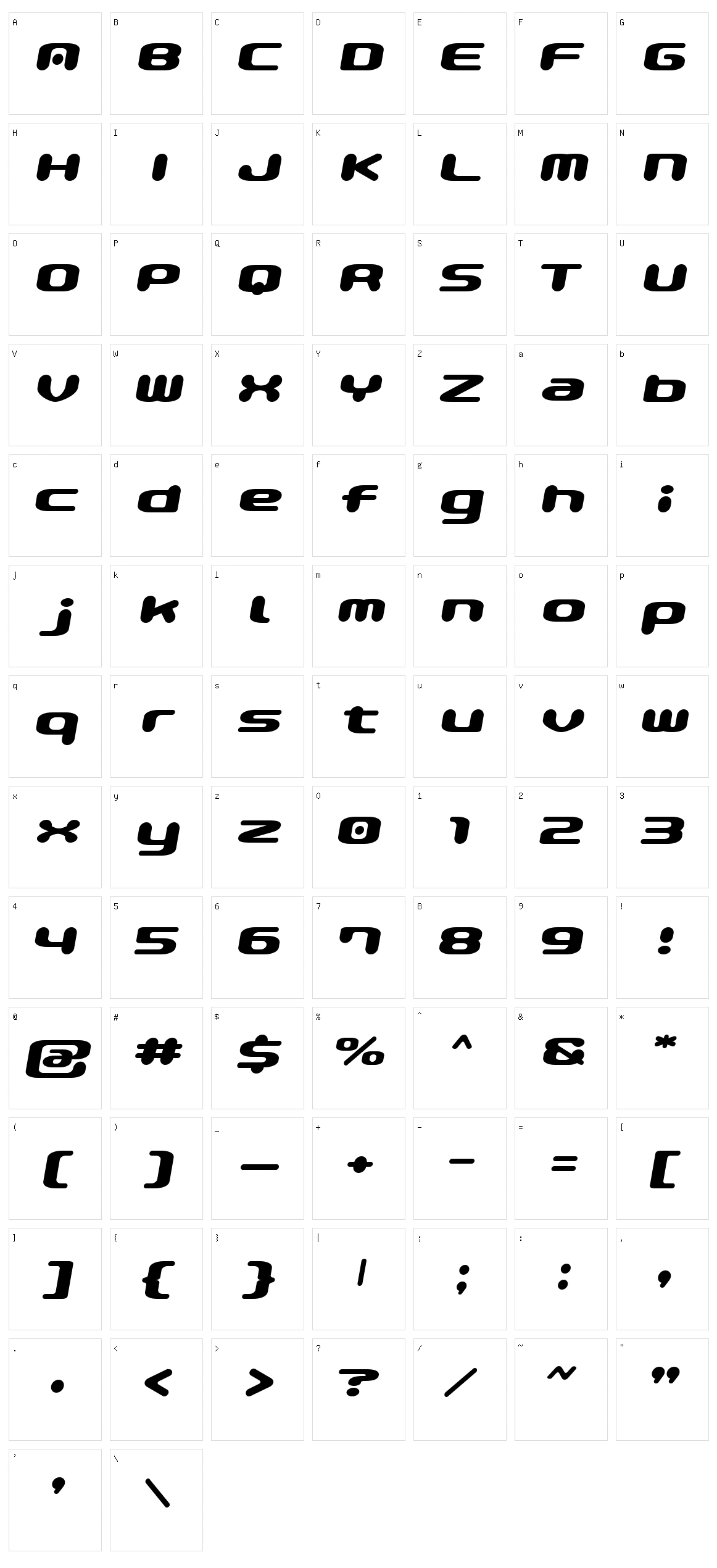
The free font Pop Magic is carefully designed by Graphic Arts Units, showcasing a thoughtful balance of creativity and usability and falls under the Groovy font style. When you download the ZIP file, it contains only 28.06 KB of font files, making it lightweight and quick to download. Please review the license details below to understand permitted usage and distribution rights. If license information is not available, we recommend using this font for personal projects only or contacting the author directly for commercial usage permissions.